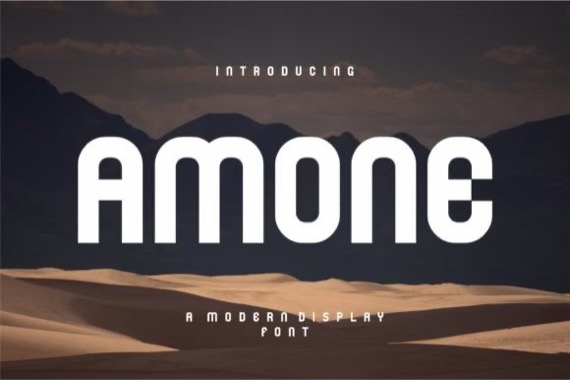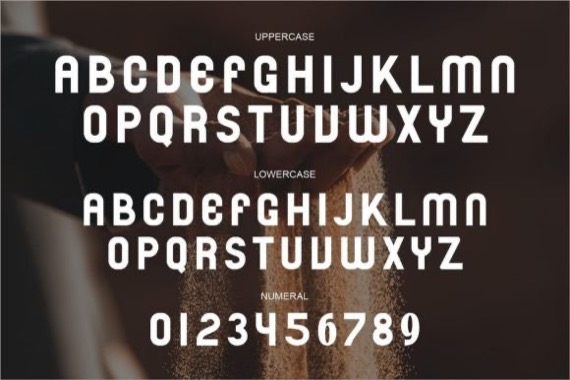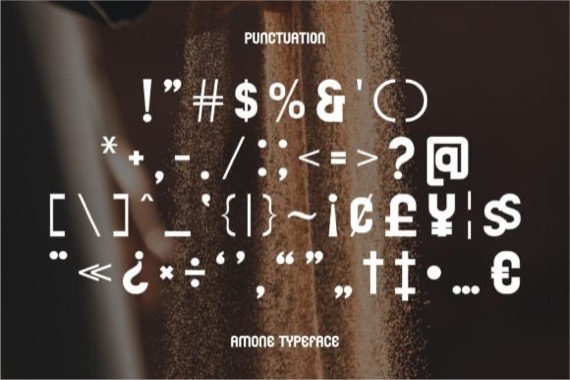
AMONE is a dazzling and neat Modern Display Font that was created and published by Alfinart, inspired by the famous minimalist logo perfect for the purposes of designing templates, brochures, videos, advertising branding, logos, invitation, layout design, elegant crafting, beauty design and others.
Amone Display Font
Designer, Publisher: Alfinart